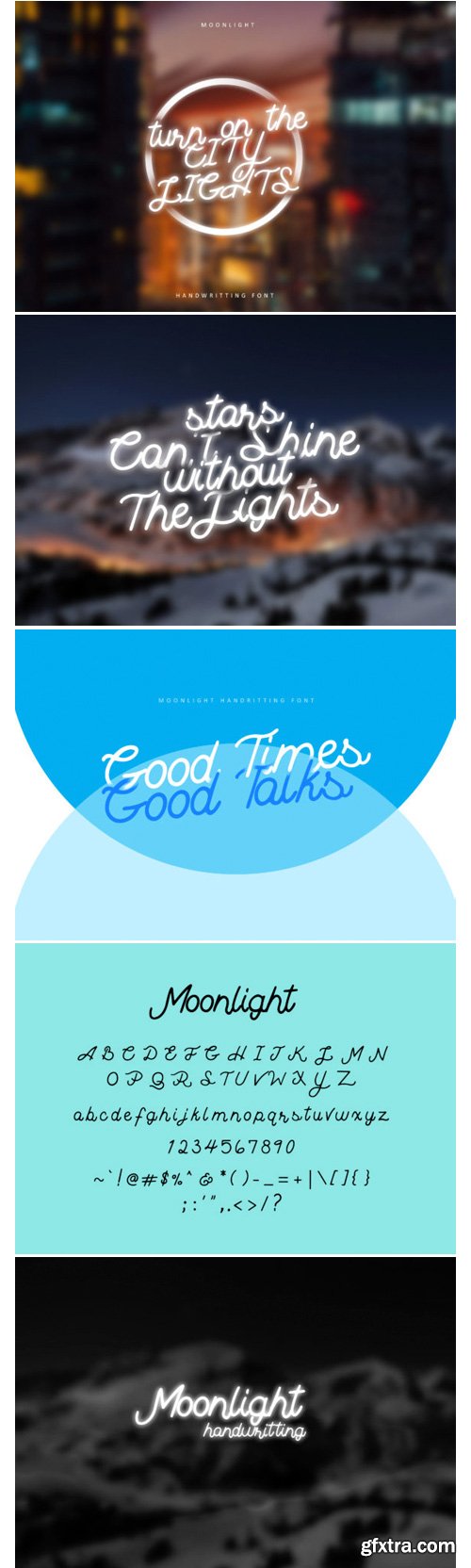
月亮字体
Moonlight Font
The Moonlight is an amazing handwritten font. It was inspired from lights and is perfect to add a neon effect to your branding designs, quotes and much more!